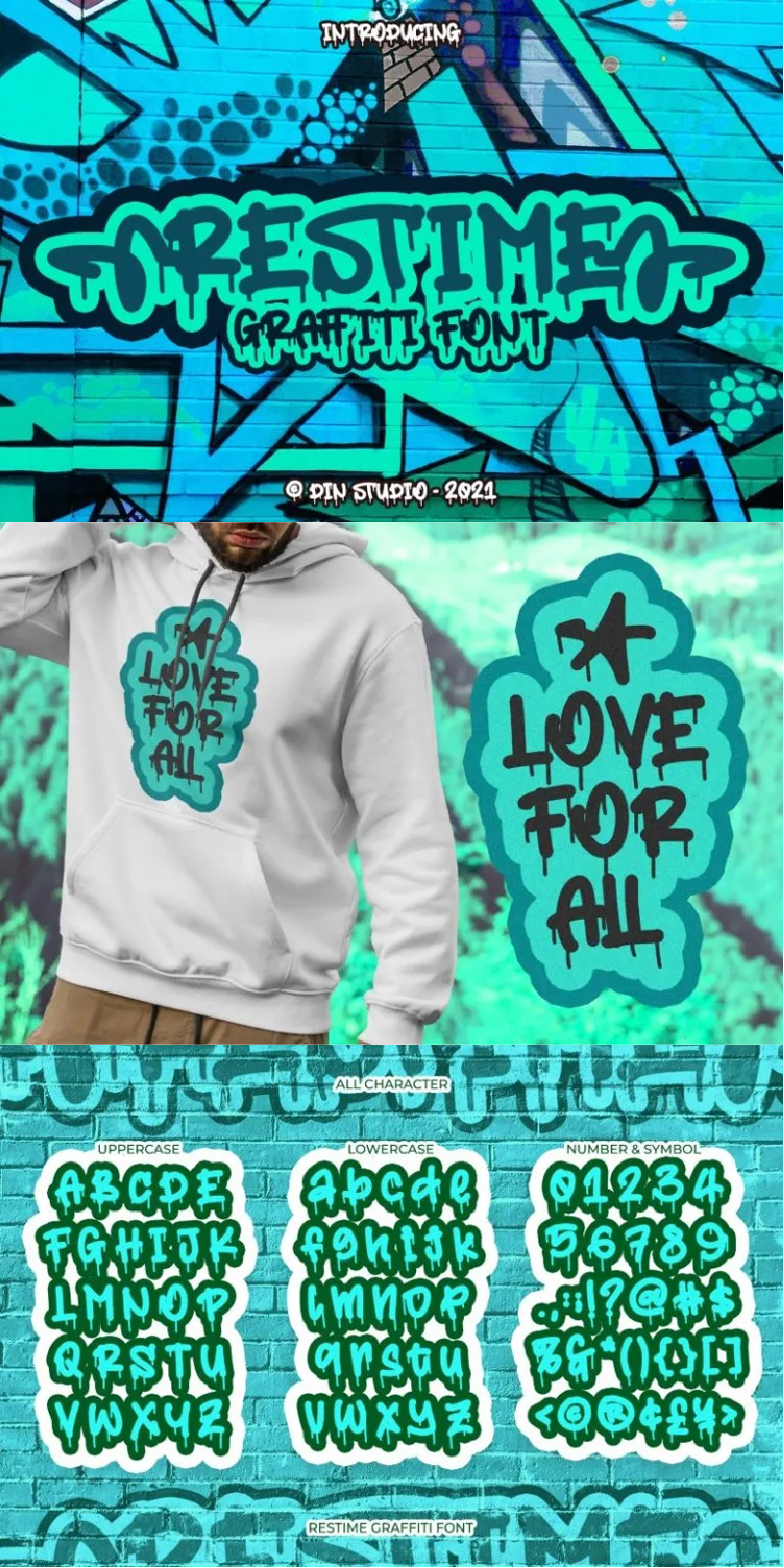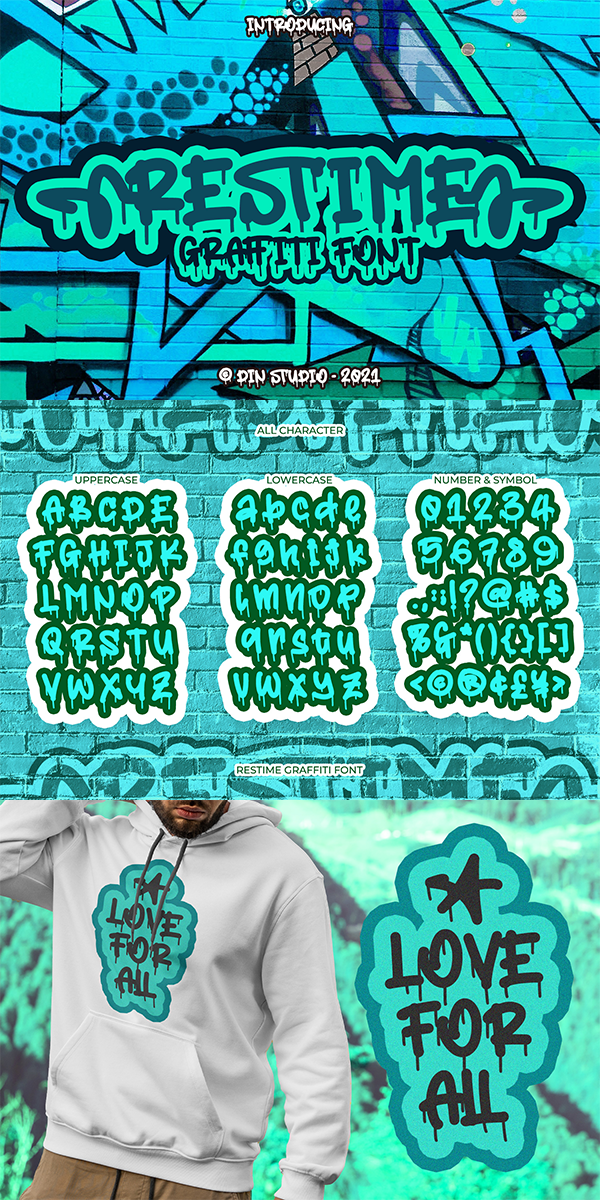
Restime Font
About Restime
Restime is an uppercase urban graffiti font, with an intricate cursive design that is captivating to the eye. This font drips down the page as if it was painted there just moments ago. This graffiti font is the best to maximize the amount of street vibe and playfulness. Ideal to create amazing headings, logos, menus, and social media graphics.